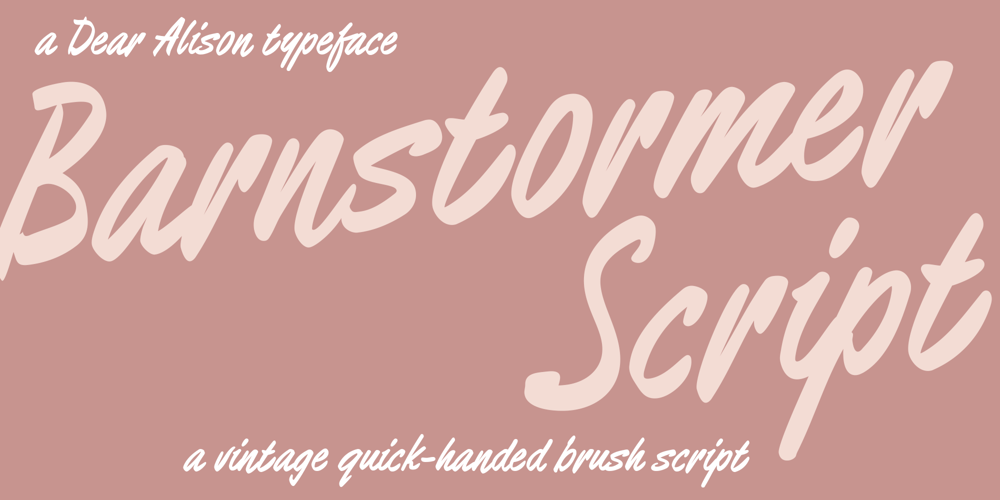
Barnstormer Script
Barnstormer Script font
Barnstormer Script Font Family was designed by Alison Argento and published by Dear Alison. Barnstormer Script contains 1 styles and family package options. Have you ever wondered why sign painter scripts, even though they can sometimes be filled with unusual letterforms strike up such a personal connection of familiarity? Is it the weight of the brushstrokes, or is it the quick fluidity of the strokes? Whatever the reason, a sign painter script just has personality! Barnstormer Script taps into that association and brings a speedy sassiness reminiscent of retro travel brochures and appliance advertisements. But for whatever you might need this script for, you’ll find it up for the task. Add a little flavor to your font collection and pick up Barnstormer Script today!